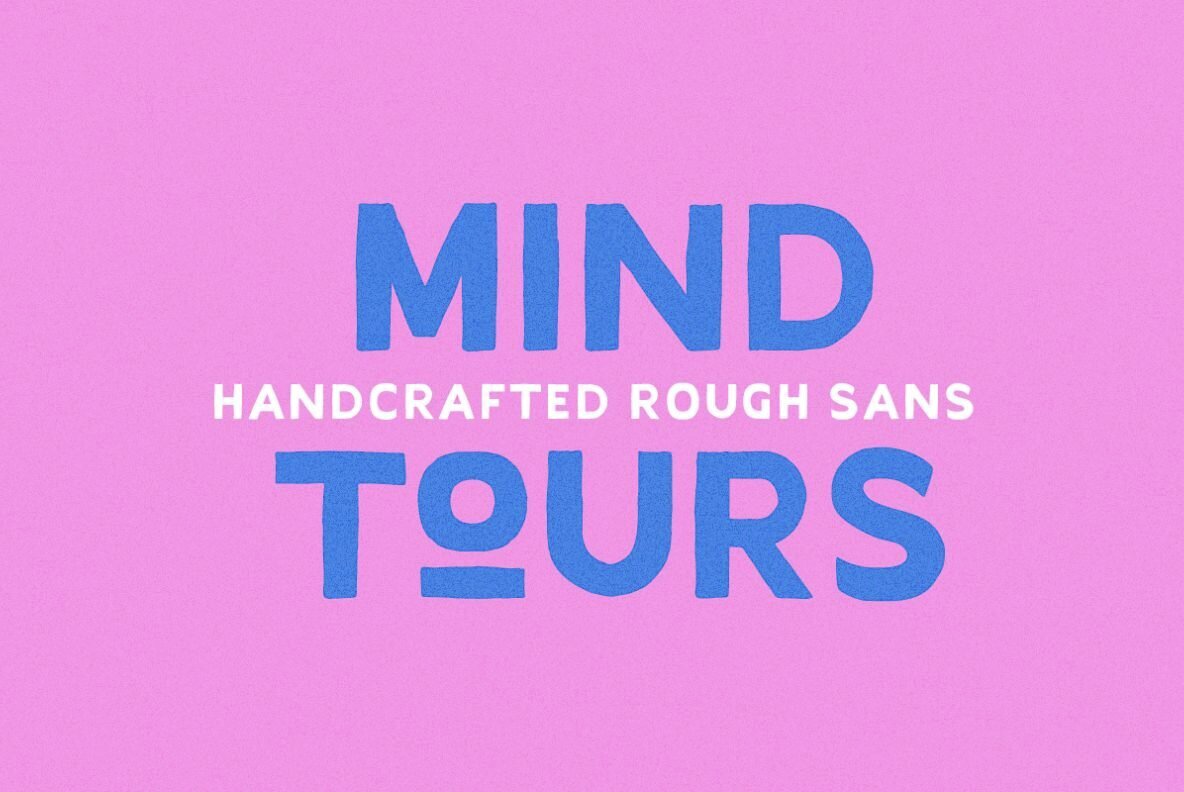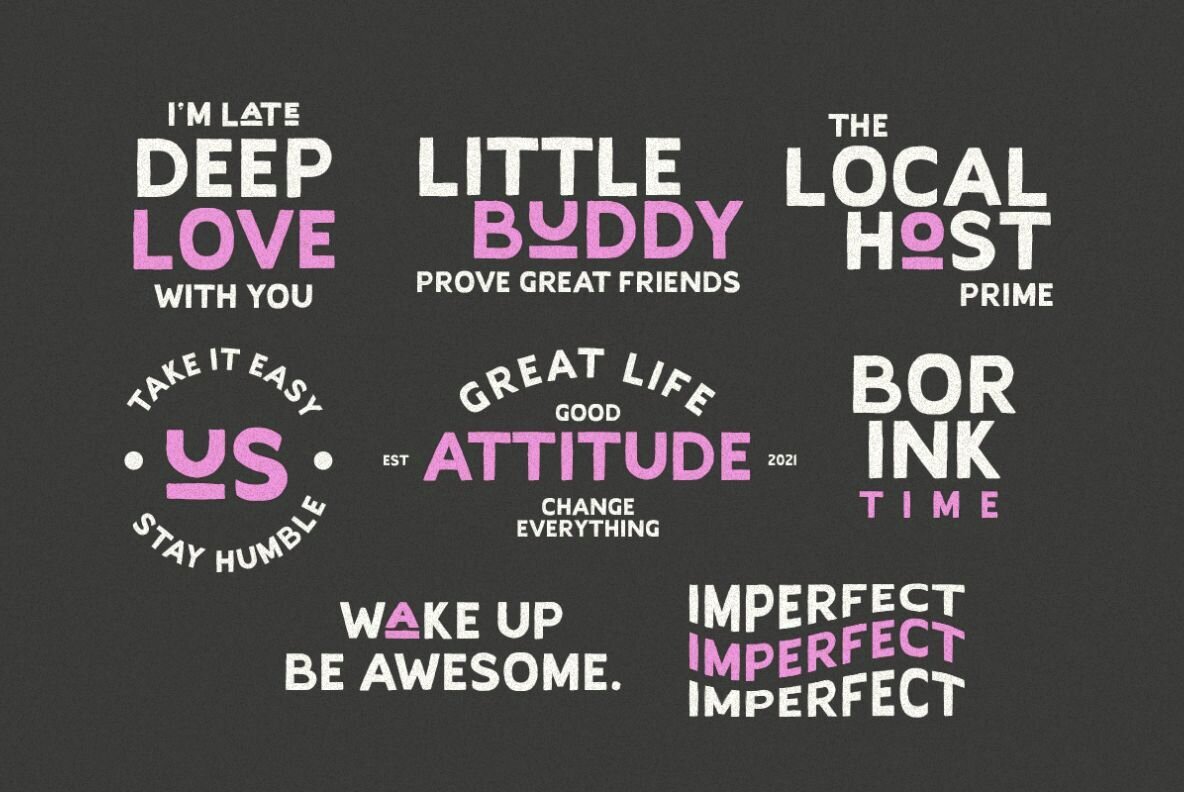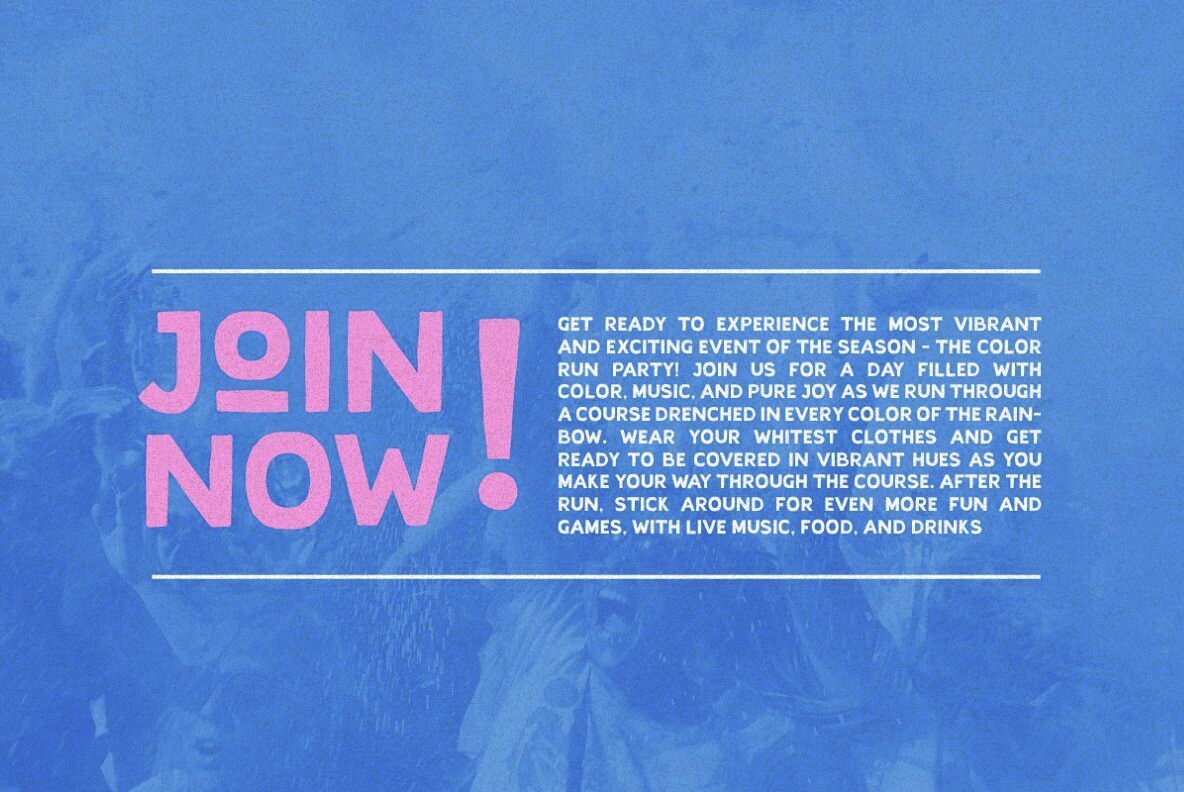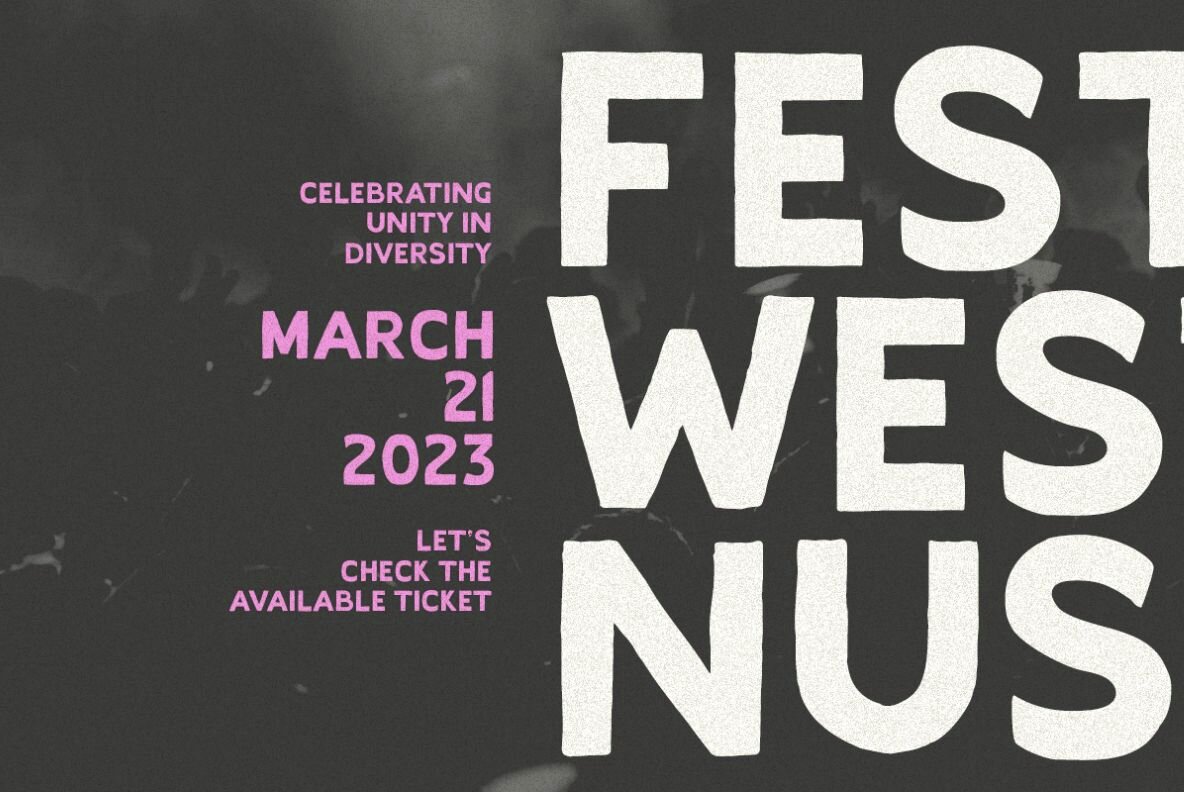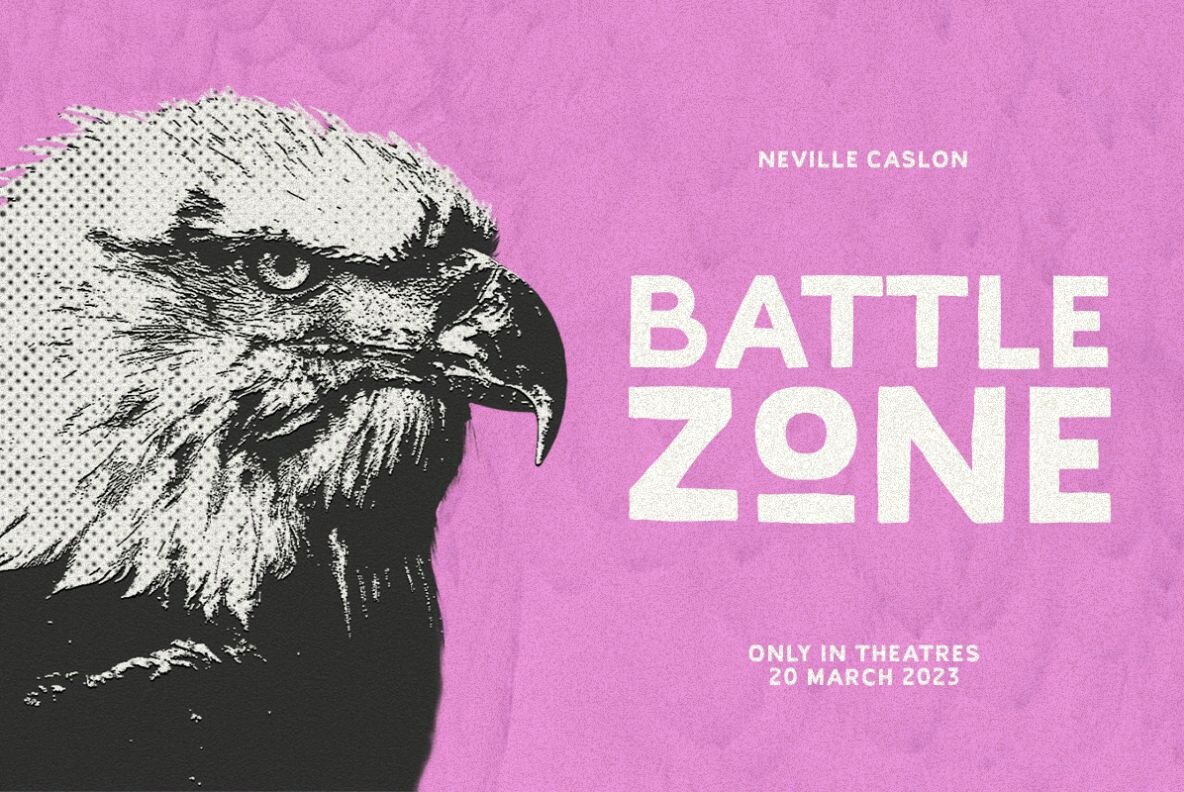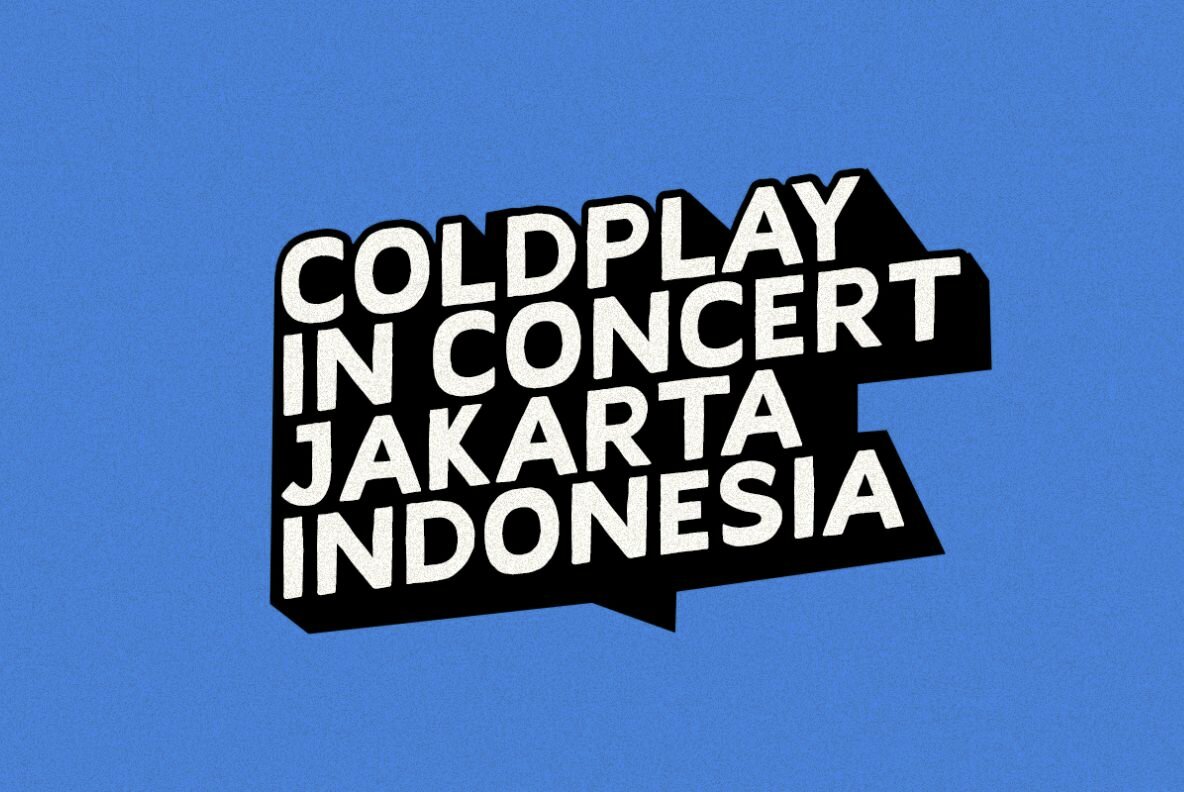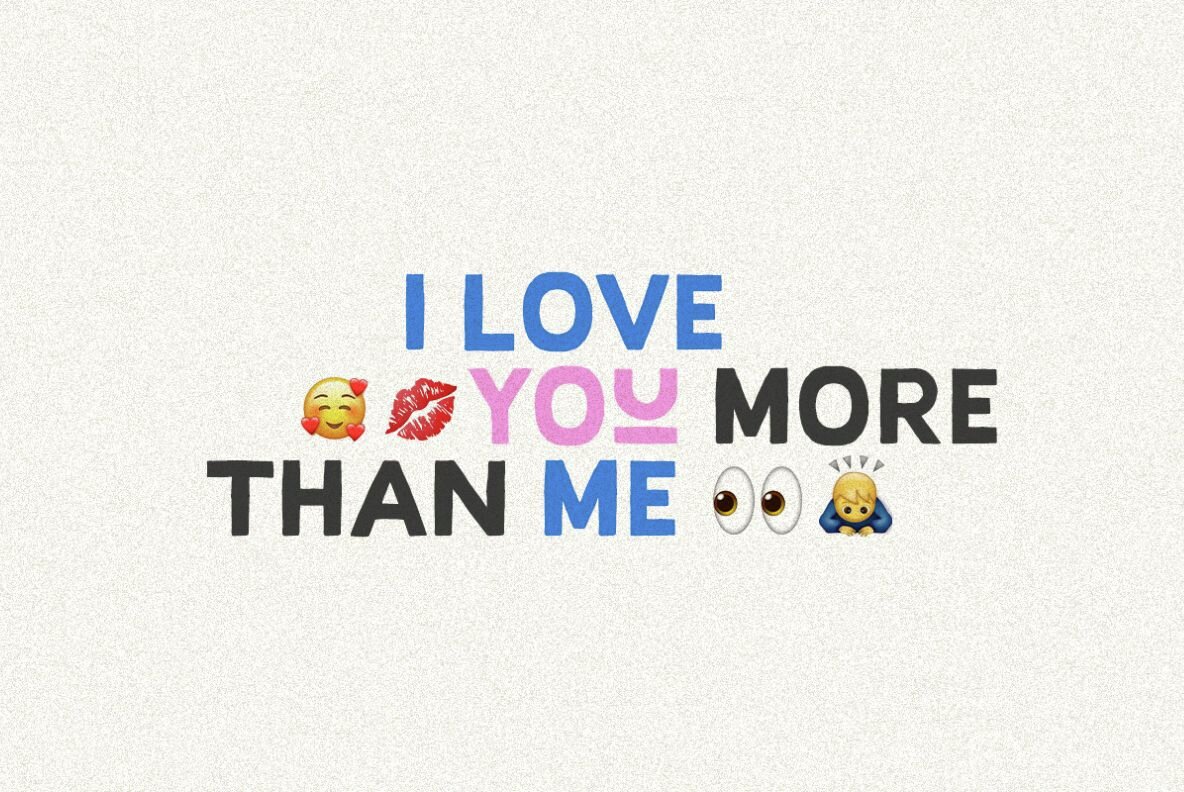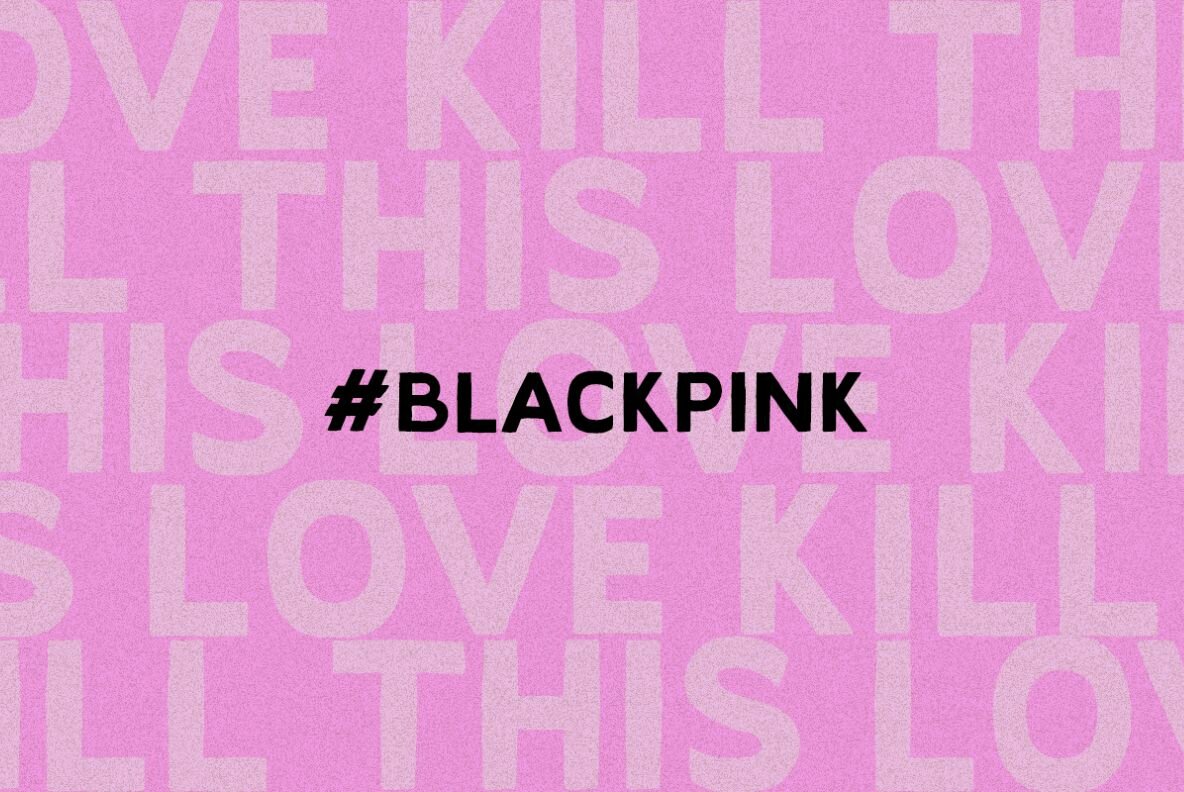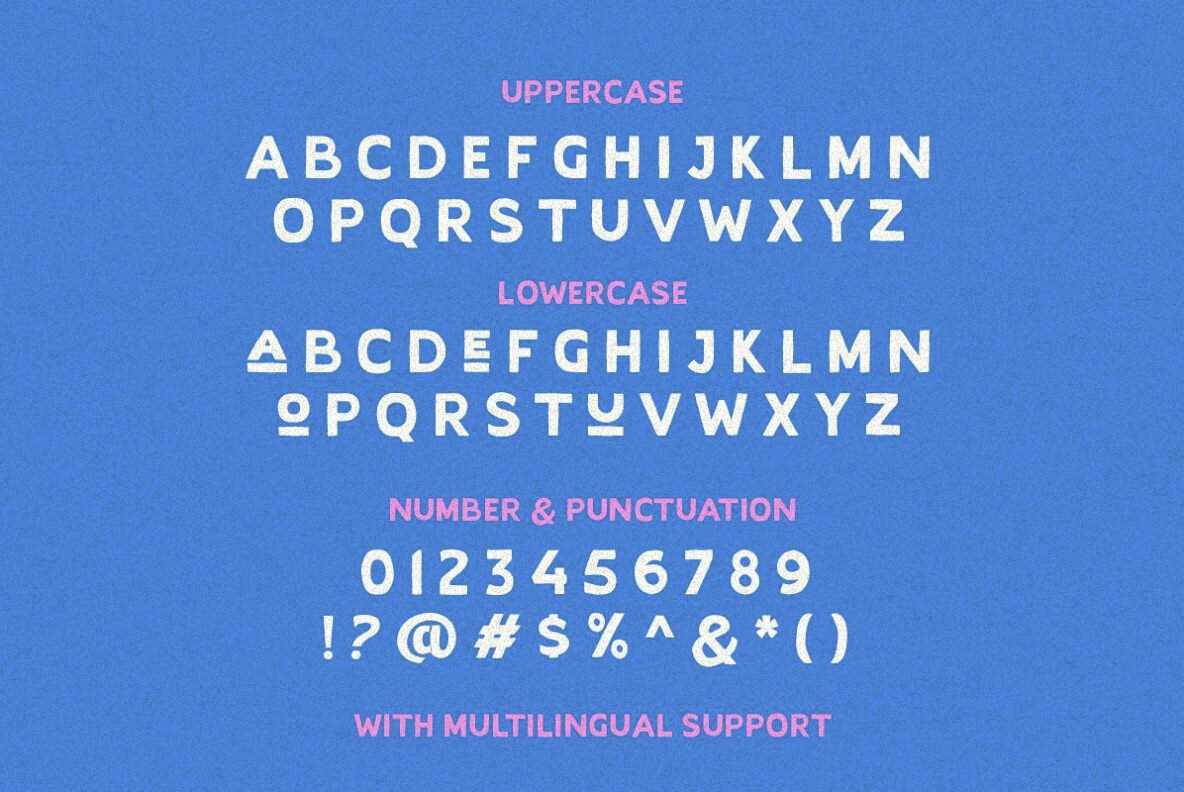
Mind Tours Font
Mind Tours Regular
Mind Tours is a unique sans typeface that infuses a handcrafted appeal with a natural, rough aesthetic. Perfect for a wide range of creative applications, from crafting a distinctive logotype to adding a personal touch to quotes and projects requiring a handmade vibe. Blend different uppercase and lowercase options to create a customized and dynamic look in every word.Embrace the Handcrafted Essence of Mind Tours